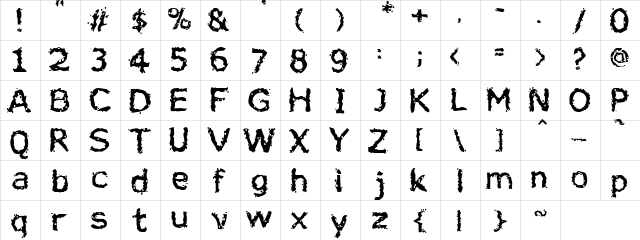
JiggeryPokery Regular
Design Context for JiggeryPokery Typeface
JiggeryPokery is a composed and adaptable typeface that performs quietly and consistently across a wide range of design contexts.